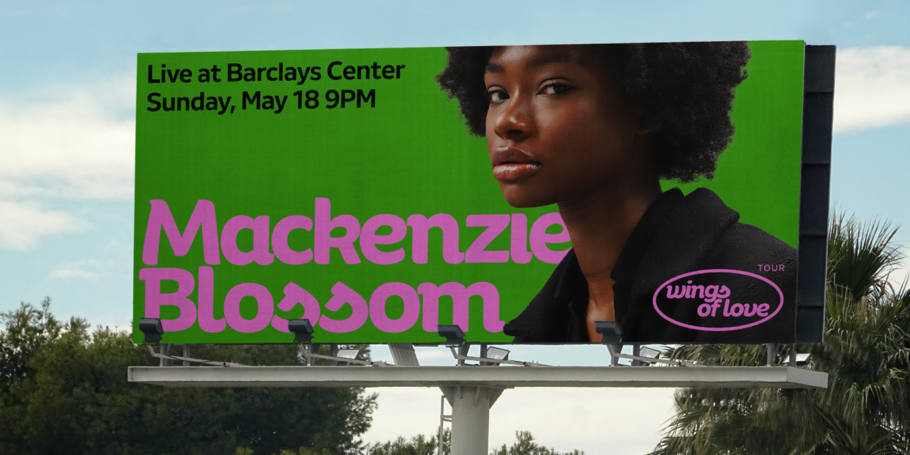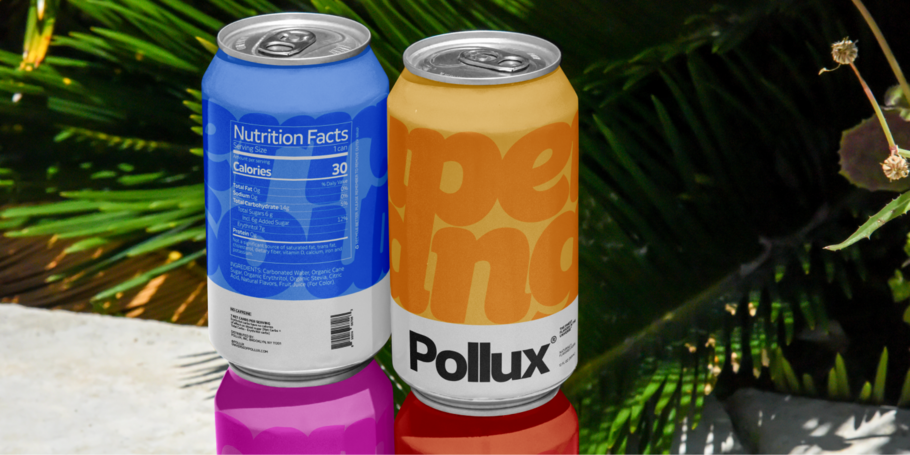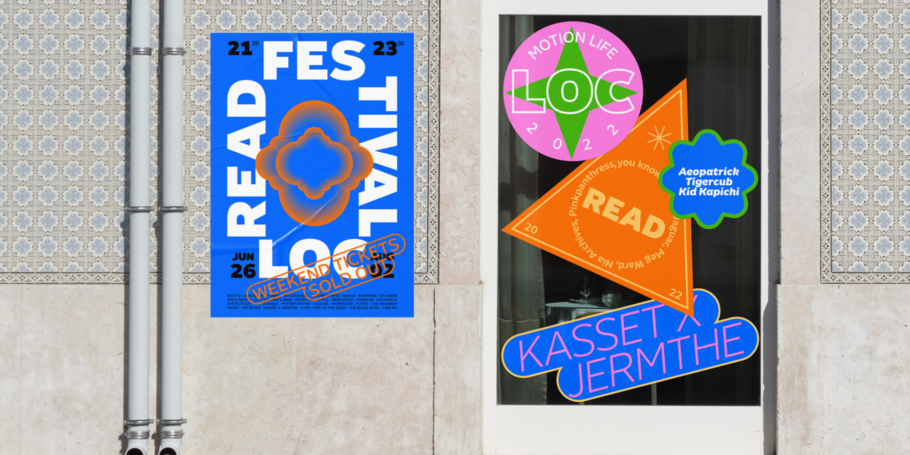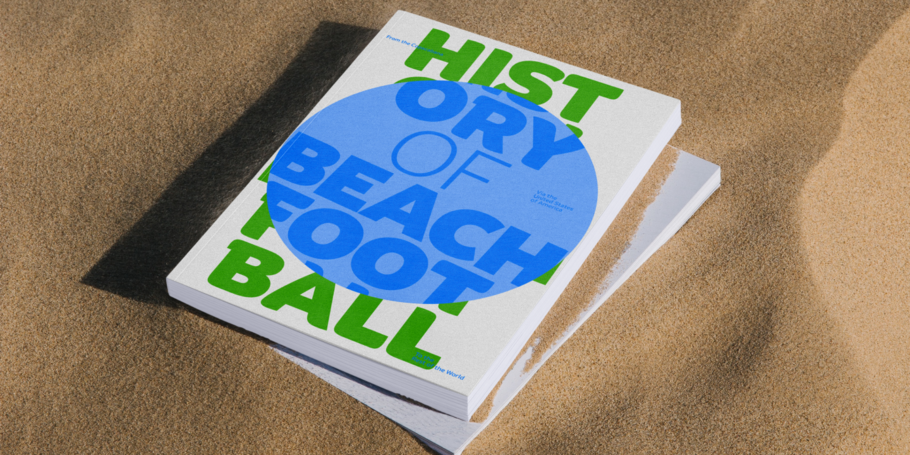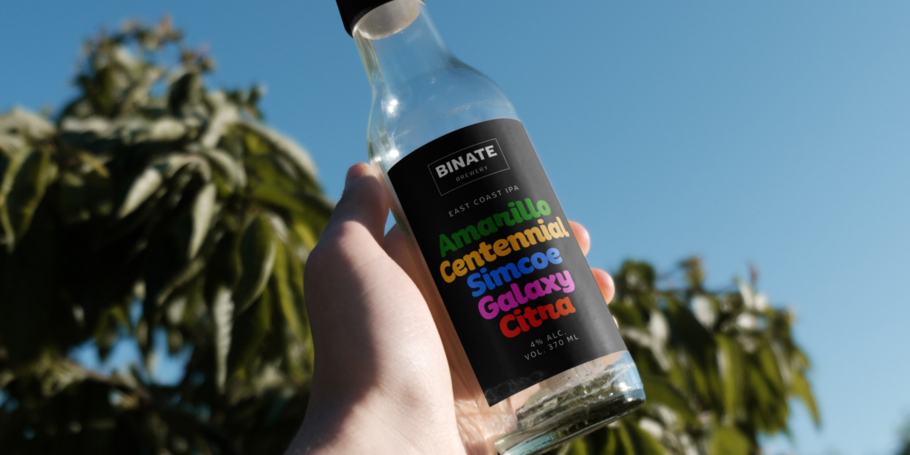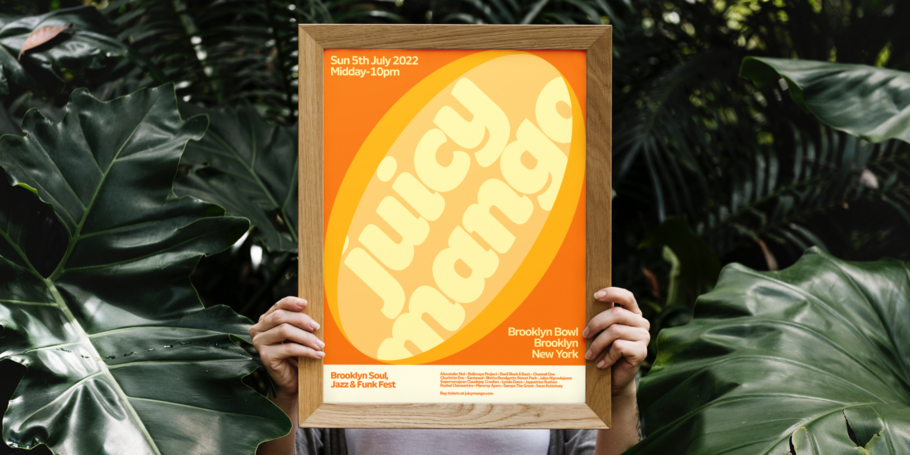
Binate
Explore expression and functionality.
Binate provides a smart and adaptable solution for the modern creative. Designed with functionality at its core, Binate offers a synergetic blend of neutrality and expression — all within a contemporary superfamily. Binate encourages you to experiment with its impressive weight ranges and arms you with ample tools to refine and tweak endlessly.
Binate provides a smart and adaptable solution for the modern creative. Designed with functionality at its core, Binate offers a synergetic blend of neutrality and expression — all within a contemporary superfamily. Binate combines the characteristics of a workhorse sans serif and an elegant brush-inspired display style.
The Binate family delivers a wide variety of possibilities and combinations for designers with its vast range of weights from Hairline to Black. Built for purpose, Binate offers designers a diverse spectrum of expression, as Binate is as comfortable in the tiny details on packaging as it is in large formats like billboards and posters.
Binate’s apertures present a crisp and rigid style that evoke a utilitarian design, yet experimenting with some of Binate’s lower hooks can offer a more approachable and friendly demeanor. All of Binate’s companions — like it’s Italics — can unlock new layers of creativity and tone of voice, and they all feel at home on both digital and print mediums.
Binate encourages you to experiment with its impressive weight ranges and arms you with ample tools to refine and tweak endlessly.